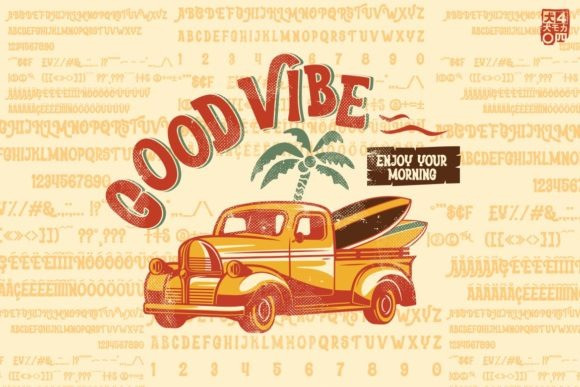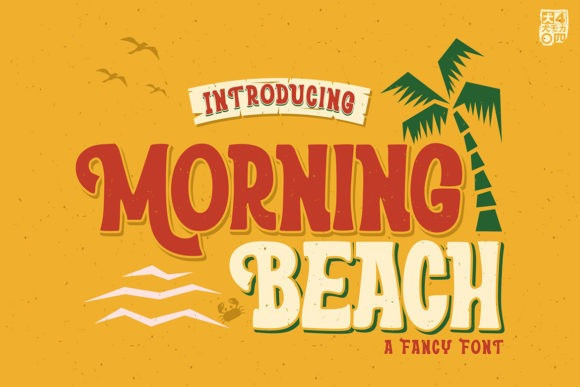
Morning Beach Font
Morning Beach Font is a bold and playful display font, carefully handcrafted to become a true favorite. Its casual charm makes it appear wonderfully down-to-earth, readable and, ultimately, incredibly versatile. This font will look outstanding in any context, whether it’s being used on busy backgrounds or as a standalone headline!